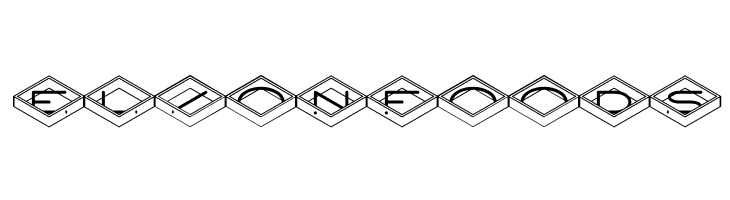
( Fonts by Jester Font Studio )
An ornate and decorative font with intricate lace-like patterns and diamond-shaped borders.
( Fonts by Paul - viciousink.net )
A bold, superhero-themed font with diamond-shaped outlines and intricate line work.
( www.southype.com )
A decorative font with geometric letters enclosed in ornate diamond shapes.
( Pixel Sagas - Neale and Shayna Davidson - www.pixelsagas.com )
A bold, italic font with decorative diamond accents and dynamic style.
( TwoNineFive - Maximillian Limpo )
A geometric, decorative font with diamond-shaped cutouts and bold, angular lines.
( Bouton-Dev - www.bouton-dev.16mb.com )
A pixelated, geometric font with characters enclosed in diamond shapes, offering a retro digital aesthetic.
( Etherbrian - www.etherbrian.com/ )
A modern, geometric font with characters enclosed in diamond shapes.